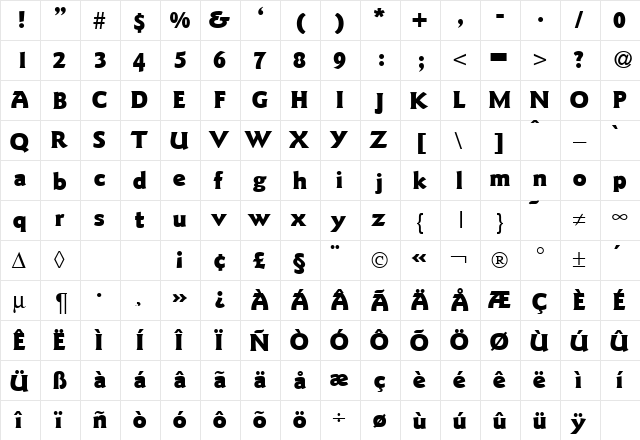
GoudySansTwoBlack DB Regular Font Preview
GoudySansTwoBlack DB Regular
Design Context for GoudySansTwoBlack DB Typeface
GoudySansTwoBlack DB is a composed and adaptable typeface that performs quietly and consistently across a wide range of design contexts.